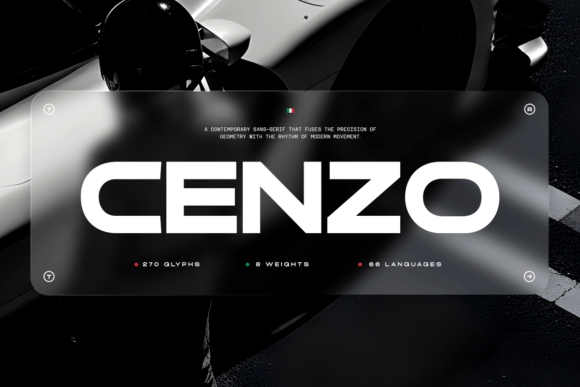
Unlocking the Power of Modern Design: The TRT Cenzo Font
As designers, we’ve all been there – staring at a blank canvas, waiting for the perfect font to bring our vision to life. It’s that moment when the right typeface can elevate our work from good to great, and the TRT Cenzo Font is one of those game-changers.
Conceived as an evolution of classic modernist typefaces, Cenzo Font reimagines the bold, clean geometry of its predecessors to deliver a sharper, more dynamic aesthetic tailored for the contemporary design landscape. With its subtle terminal cuts and meticulously balanced proportions, this futuristic sans-serif seamlessly bridges the gap between minimalist restraint and high-impact visual drama.
For designers, the TRT Cenzo Font offers unparalleled creative flexibility, making it an invaluable addition to any design toolkit. Whether you’re crafting corporate branding, UI/UX, or impactful display headlines, this versatile font is sure to elevate your work and leave a lasting impression.
Cenzo Font Key Features
- Unique Characteristics: Cenzo Font features a distinctive, modern design with clean lines and a high level of legibility.
Cenzo Font Review
Overall, I found the Cenzo font to be quite versatile and suitable for a wide range of applications. Here are some of its strengths:✨
- Good legibility, making it easy to read in both print and digital formats.
- Well-suited for headings and titles due to its strong, bold appearance.
However, there are some limitations to consider:⚠️
- The font may appear somewhat generic or unremarkable to some users.
- Lack of distinctive features or unique character may make it harder to stand out in a crowded design landscape.
- May not be the best choice for projects that require a high level of sophistication or elegance.
Overall, I’d say the Cenzo font is a solid, middle-of-the-road option that can get the job done. While it may not excel in any particular area, it’s a reliable choice for a wide range of projects and applications.
Cenzo Font Practical Application Guide
For best results, use Cenzo Font in headings and titles to add a touch of elegance and sophistication.
For optimal results, use Cenzo Font in conjunction with bold or italic styles to create emphasis and visual interest.
For best results, use Cenzo Font in headings and subheadings to create a clear and organized visual hierarchy.
Cenzo Font is ideal for:
1. Fashion and beauty branding.
2. Luxury goods and high-end products.
3. Creative and artistic projects.
4. Any design project that requires a touch of elegance and sophistication.